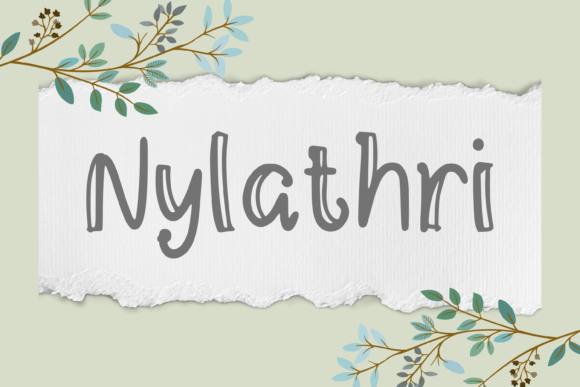
Welcome to the world of Nylathri, a display font that exudes coolness and casual charm. This font is not just a collection of letters and symbols; it's an expression of creativity, a tool to bring your ideas to life.
Nylathri is more than just a font; it's an experience. Each letter is meticulously crafted to create a unique and inviting atmosphere, perfect for capturing the attention of your audience. With its bold and playful strokes, Nylathri makes a statement wherever it's used.
Imagine your brand's logo adorned with the distinctive characters of Nylathri, standing out from the crowd with its eye-catching presence. Envision your creative projects infused with the vibrant energy of Nylathri, captivating your audience and leaving a lasting impression.
Nylathri is the perfect companion for those who love crafting. Its versatility shines through in a myriad of applications, from personalized t-shirts and mugs to handmade cards and home décor. Let your imagination soar as you explore the countless possibilities that Nylathri offers.
Nylathri is not just a font; it's a gateway to a world of endless possibilities. Its versatility and charm make it the ideal choice for any branding project, creative endeavor, or crafting passion. Embrace the unique beauty of Nylathri and watch your ideas transform into captivating realities.